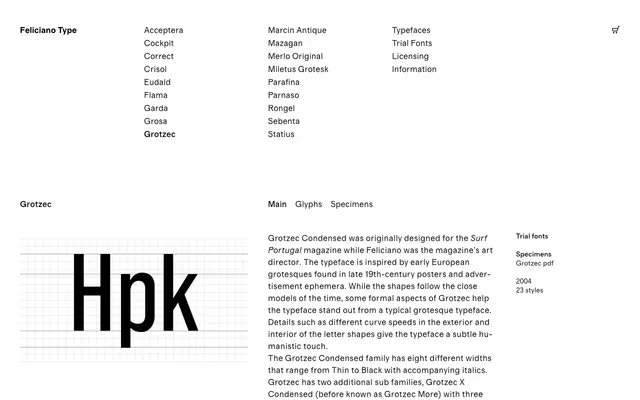
Grotzec
A condensed grotesque drawn from late 19th-century European poster types, originally designed for Surf Portugal magazine where Feliciano served as art director.
Developed from close study of historical European grotesques found in late 19th-century posters and printed ephemera, the family introduces subtle humanistic inflections through varied curve speeds on the interior and exterior of letterforms. The core Grotzec Condensed family spans eight weights from Thin to Black with matching italics, while two additional sub-families extend the range: Grotzec X Condensed in three extreme-condensed black styles and Grotzec Poster in four widths optimised for very large sizes. The collection totals 23 styles across the full range.
Rooted in late 19th-century European grotesque poster types, Grotzec is a condensed grotesque with subtle humanistic curve details that distinguish it from strictly mechanical grotesque models.